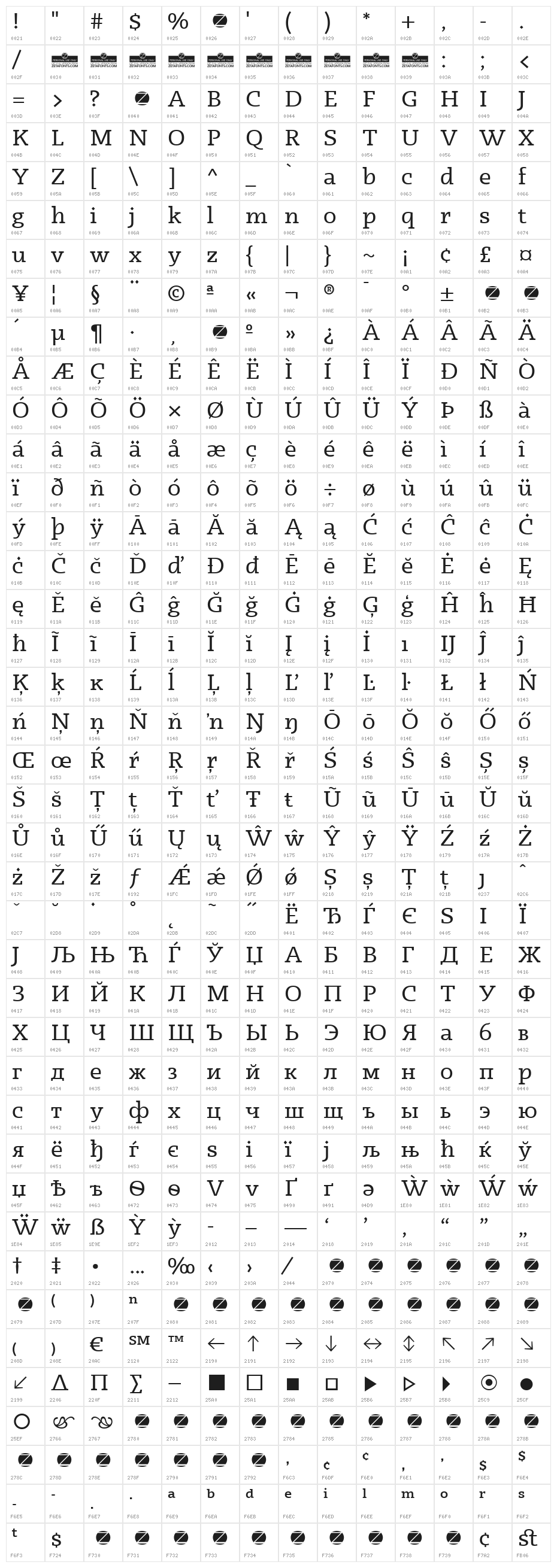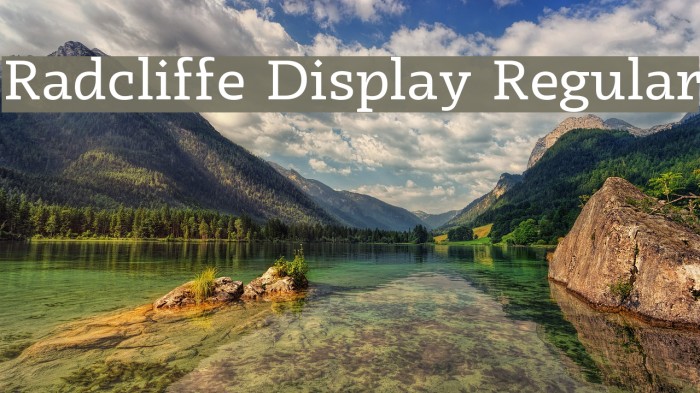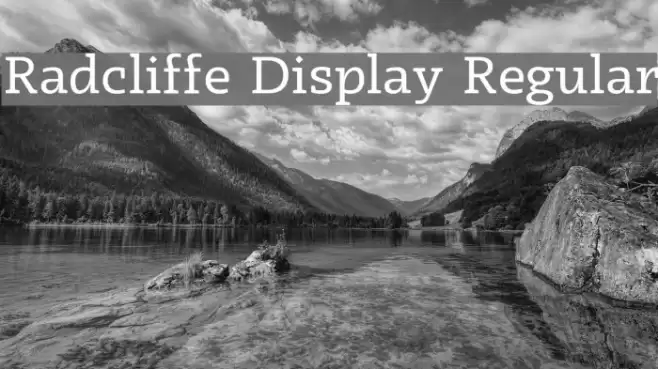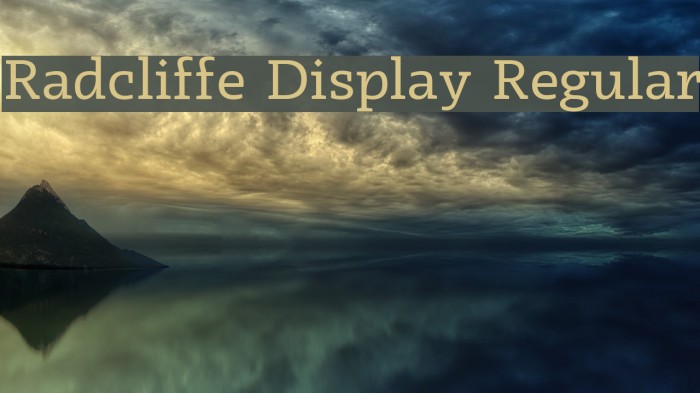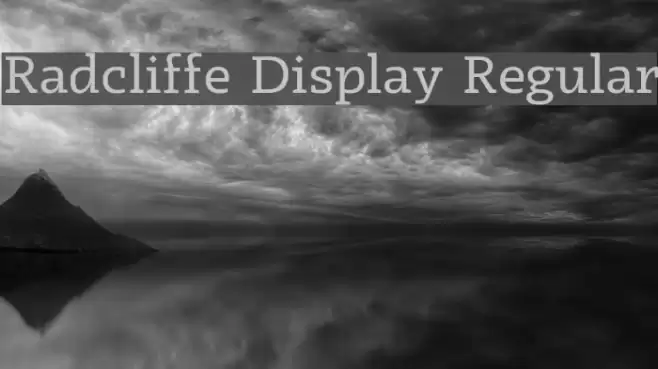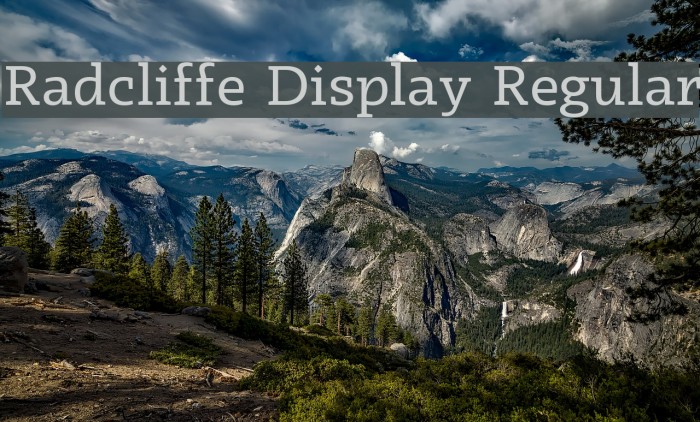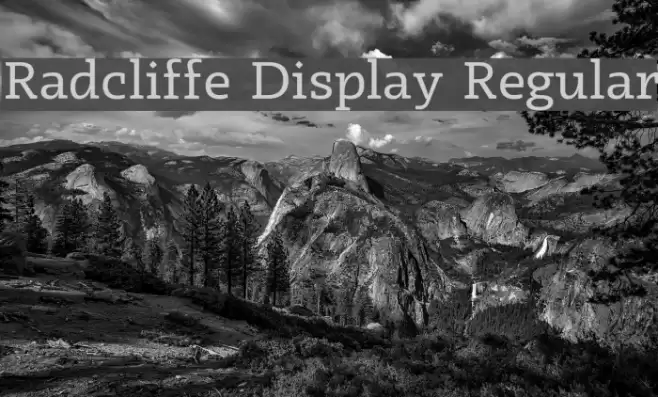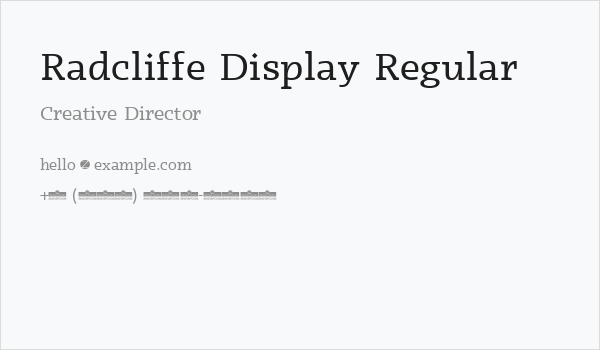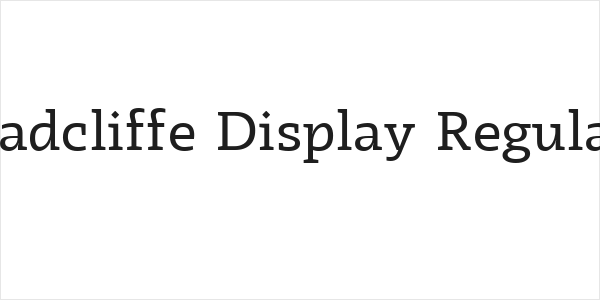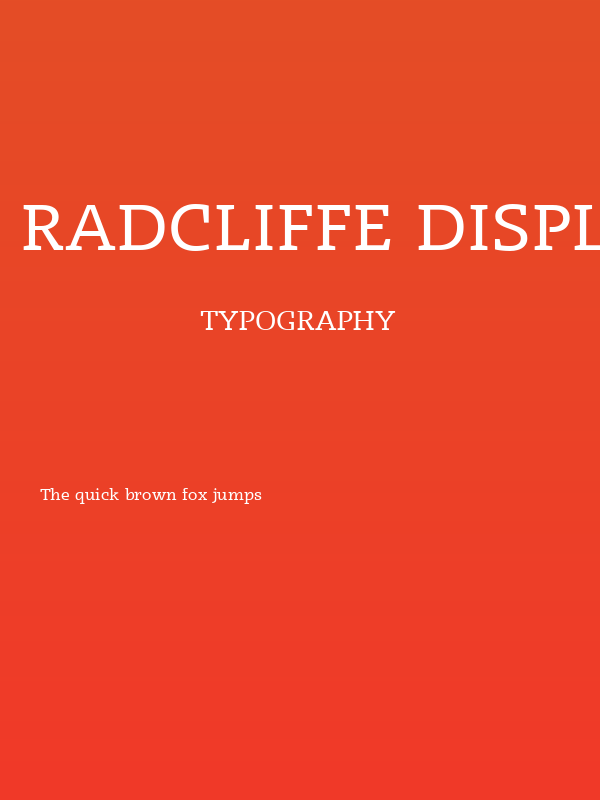
Radcliffe Display Regular Font
Radcliffe Display Regular Description
This font features a classic serif style with a modern twist, characterized by its clean lines and balanced proportions. The uppercase letters are bold and commanding, while the lowercase letters maintain a harmonious flow. The numerals are clear and easily readable, making them suitable for a variety of applications. The special characters are well-integrated, ensuring consistency across different uses. The overall design is elegant and versatile, making it ideal for both digital and print media.
| Proposed Projects | Ideal for editorial design, branding, and sophisticated print materials. |